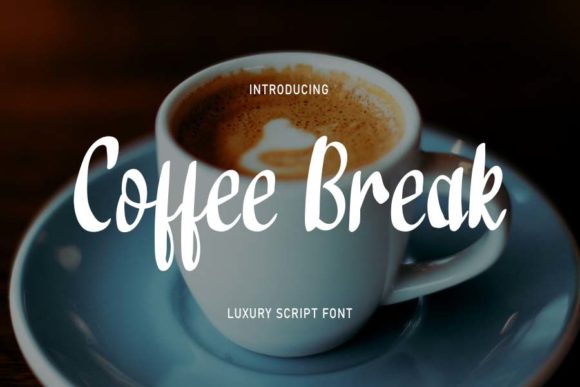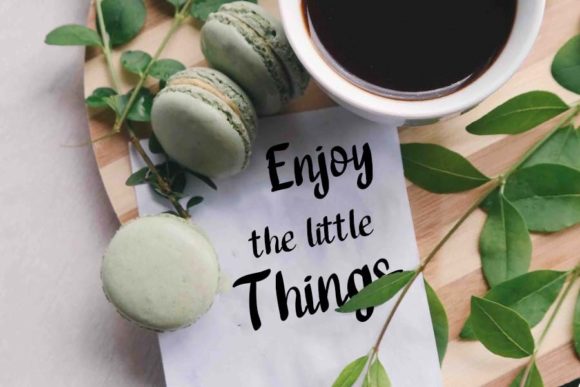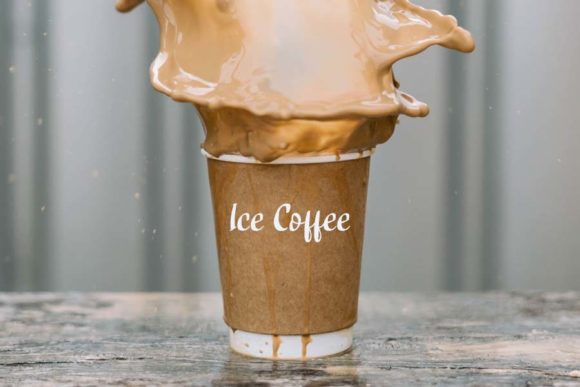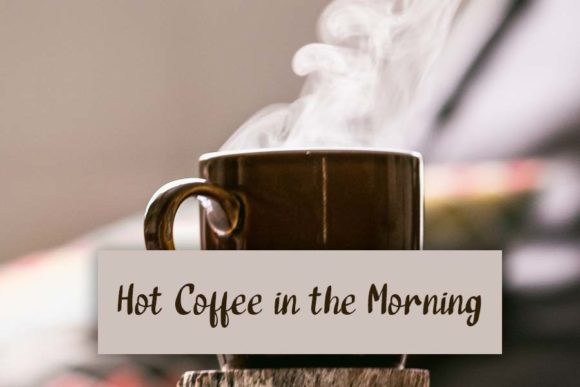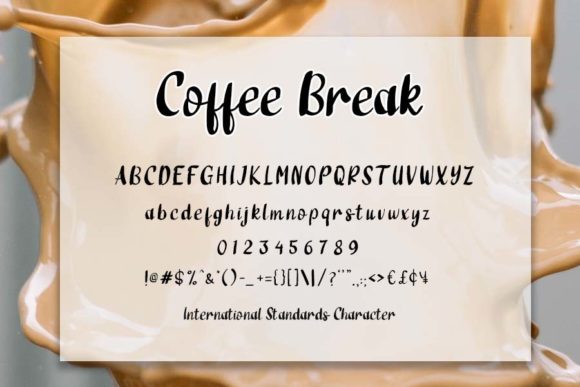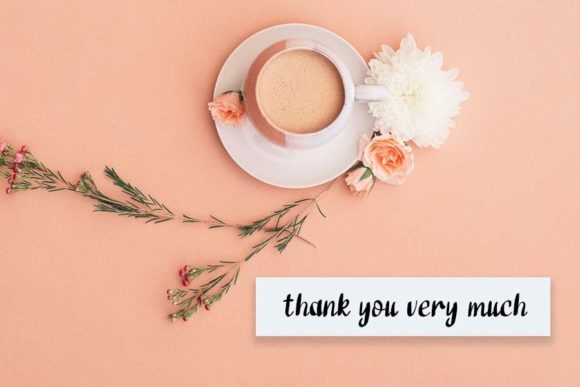
Coffee Break Font
About Coffee Break Font
Coffee Break is a simple and natural handwritten font. Add this clean and adaptable font to your fonts’ library, and you will use it on every possible occasion.